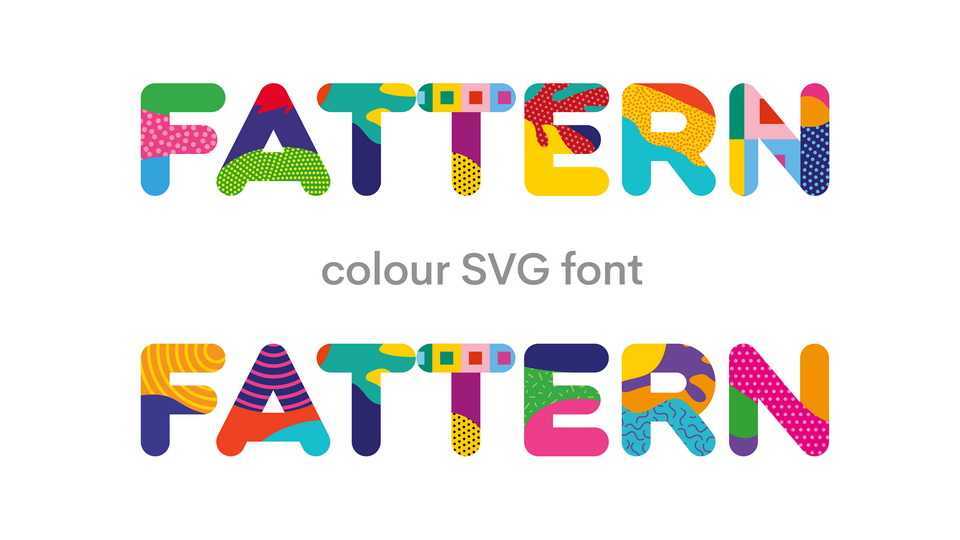
Download Fattern font, color SVG display typeface. Fattern name is a hybrid of Fat (because he is fat, indeed) and Pattern – because letters are filled with colorful patterns.
Designer: Ivan Filipov